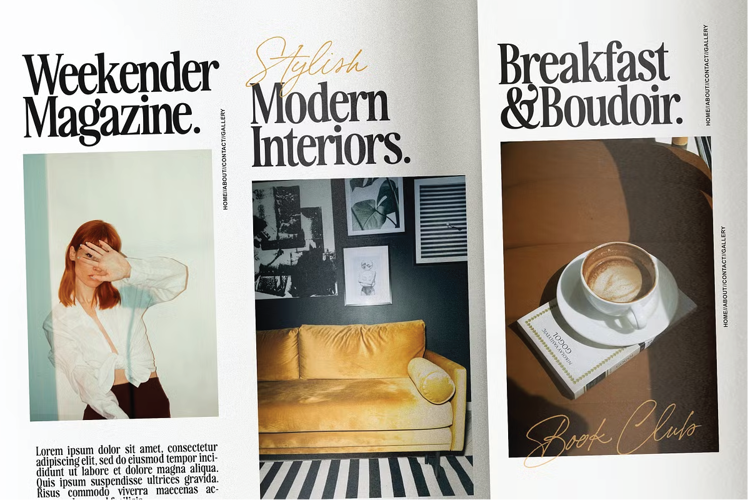
Bon V -all Sem Bd Font
Semi Bold Extra Tall Style
Noveira Serif Font - This font would be perfect for photography, watermarks, social media posts, advertisements, logos & branding, invitations, product design, labels, stationery, product packaging, special events, and other projects. This font is PUA encoded which means you can access all glyphs with ease!